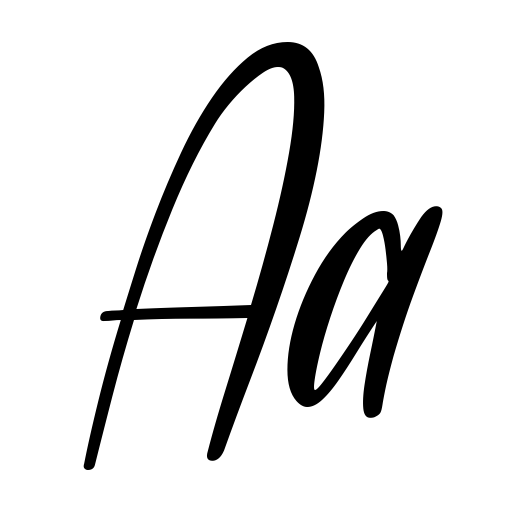
Atomic Kittens is a stylish, narrow script font with a casual, hand-lettered feel that combines elegance with a modern edge. Its tall, slender letterforms and smooth, flowing strokes make it perfect for adding a chic, personal touch to branding, invitations, and creative headlines where a lively, youthful vibe is desired. This font works well in designs that need a unique, approachable personality with a hint of sophistication.
Atomic Kittens Font
About Atomic Kittens Font